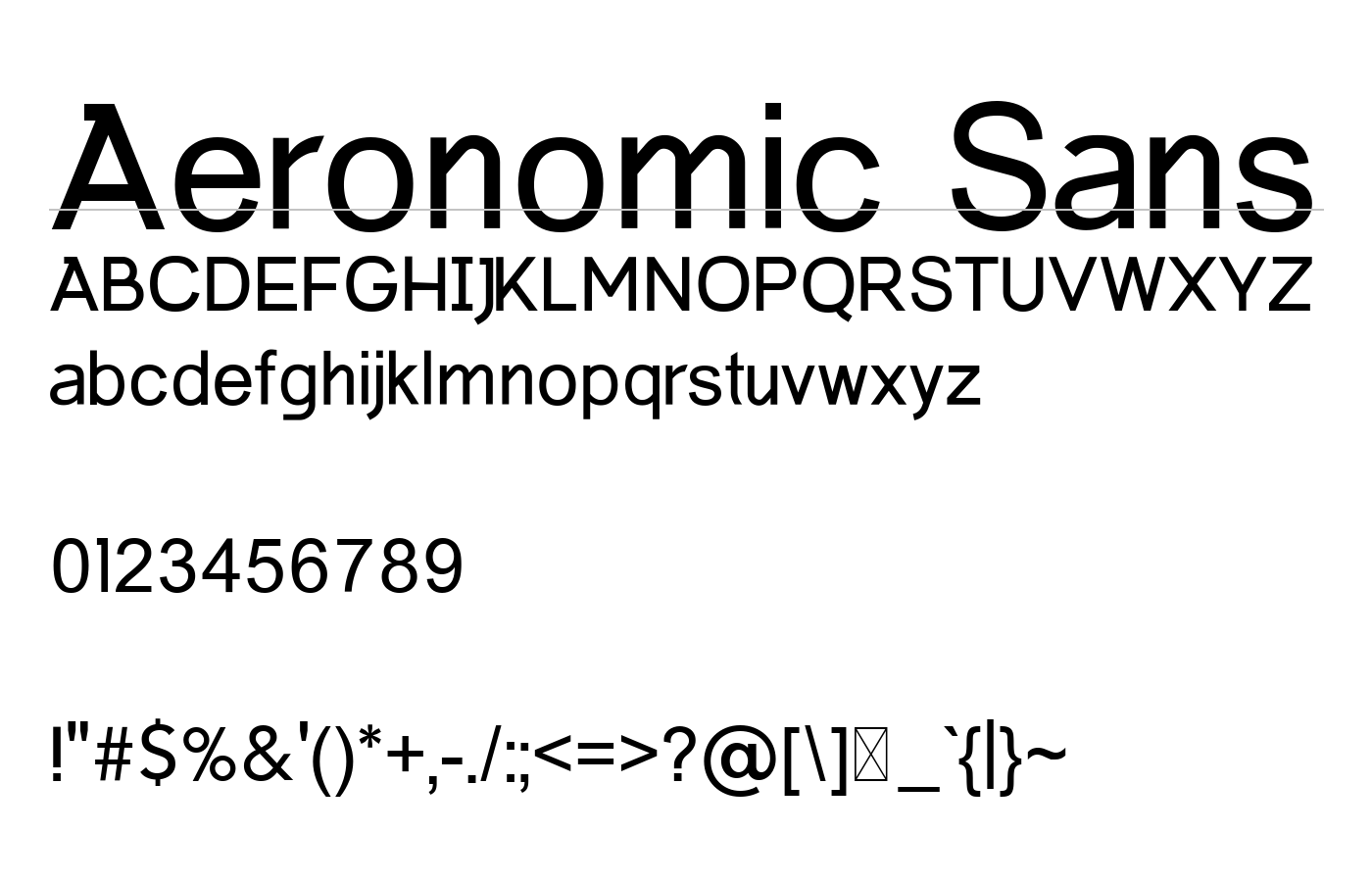
Aeronomic Sans is a clean and modern sans serif font characterized by its straightforward, neutral design and medium weight, making it highly versatile for various uses. Its open letterforms with a moderate x-height and subtle geometric touches give it a balanced, approachable feel, ideal for clear readability in both headlines and body text in digital and print. This font works well for corporate branding, tech-focused projects, and editorial layouts where professionalism and simplicity are key.
Aeronomic Sans Font